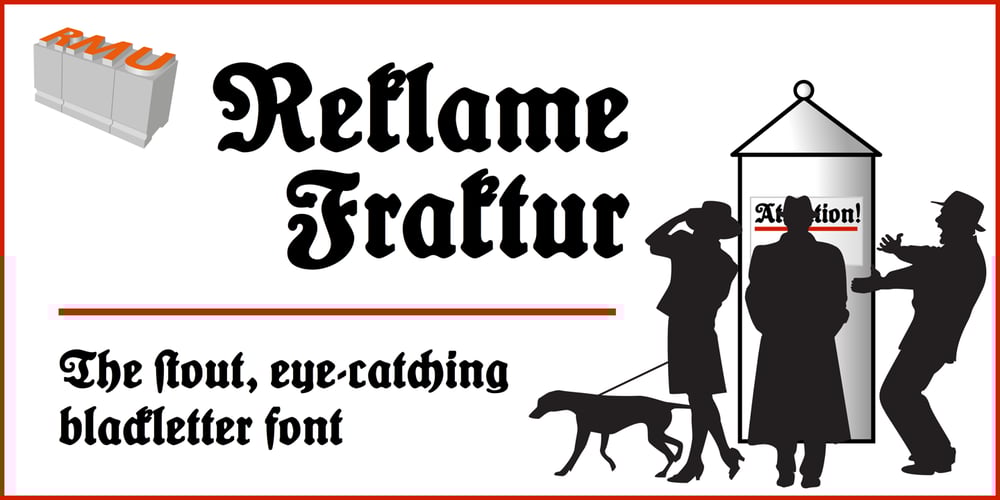
Reklamefraktur Font Family was designed by Ralph M. Unger and published by RMU. Reklamefraktur contains 1 styles and family package options. Reklamefraktur is a stout, eye-catching blackletter font for labels, product branding, posters, ads, the internet and much more.